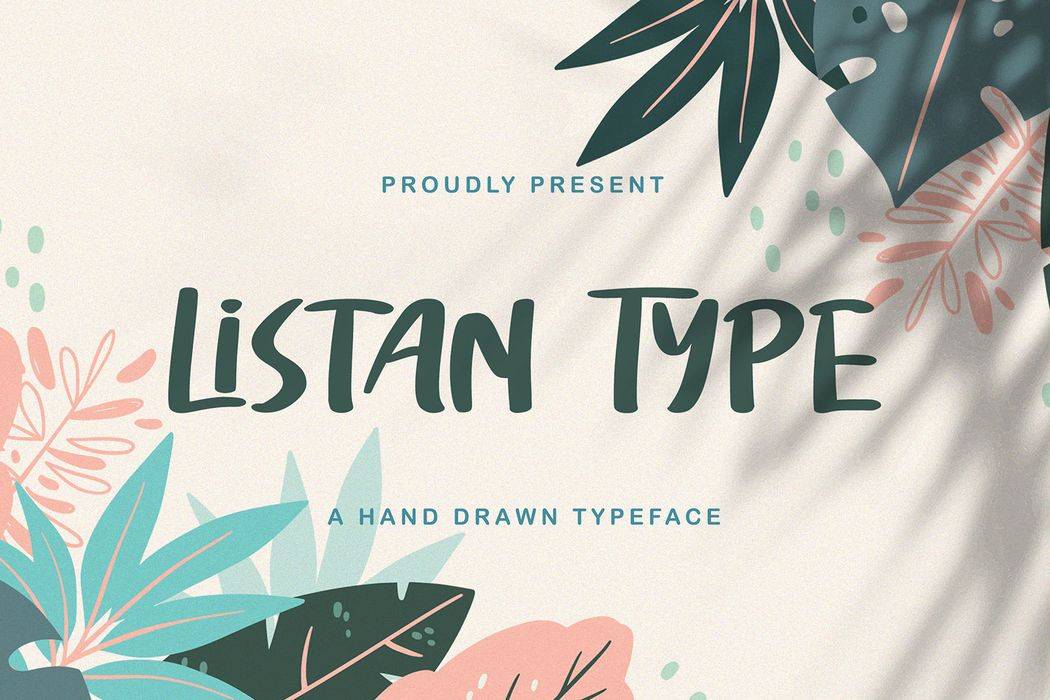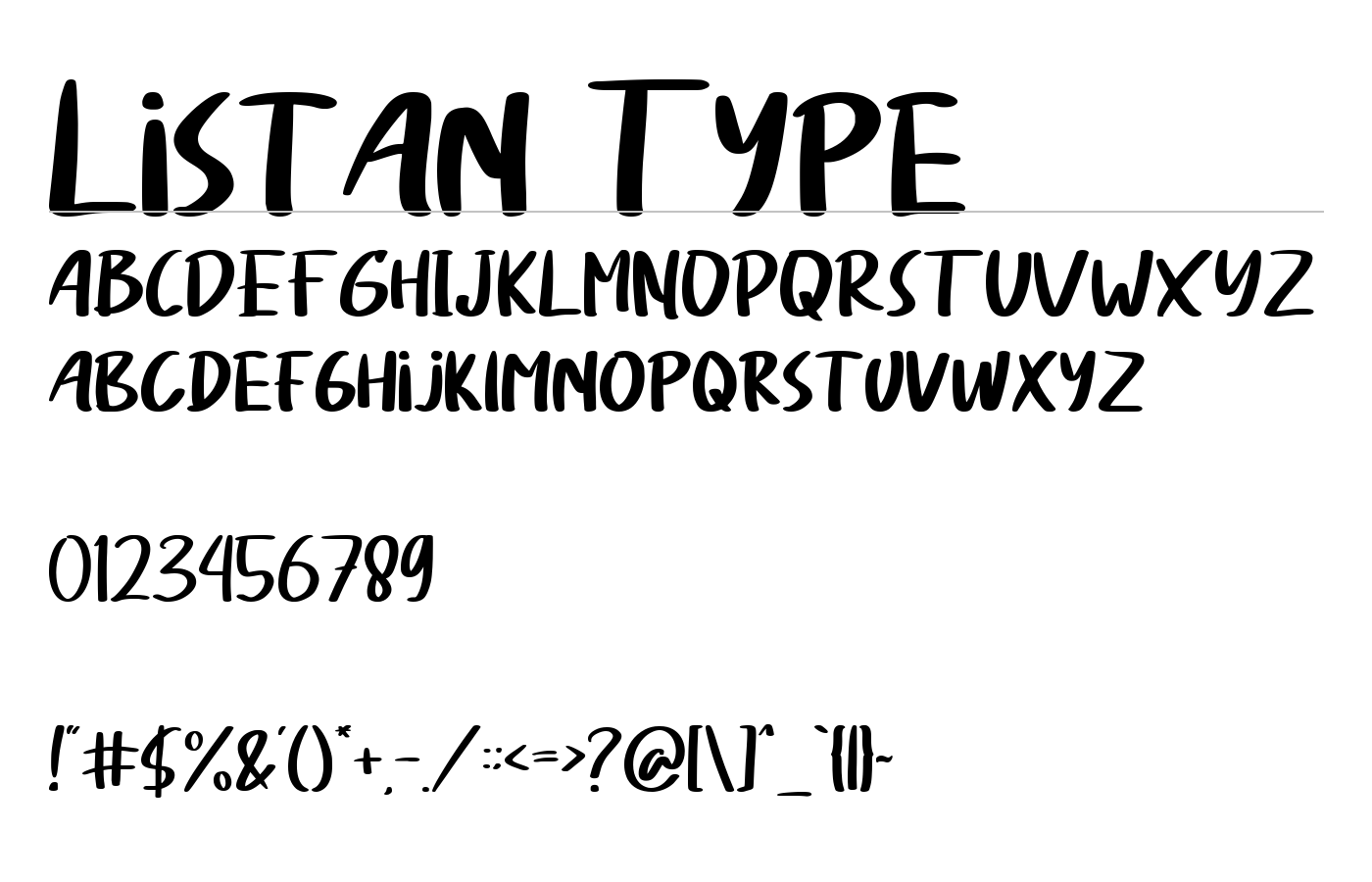
Listan Type Font is a lively, hand-drawn sans serif with a playful and informal feel, featuring smooth strokes and slightly irregular letterforms that convey a friendly, approachable personality. Its upright, casual style makes it ideal for creative projects, branding, and headlines where a personal touch or whimsical tone is desired. This font works well in contexts like posters, invitations, or social media graphics that benefit from warm, handwritten charm.
Listan Type Font
About Listan Type Font